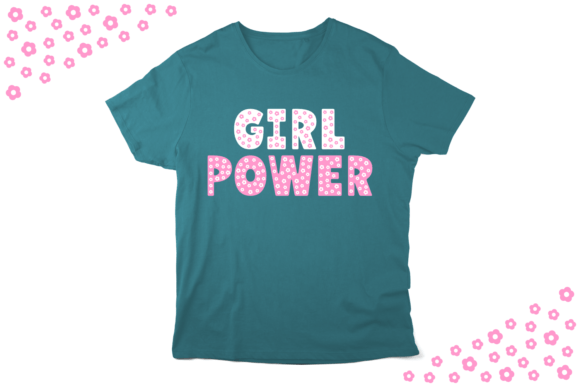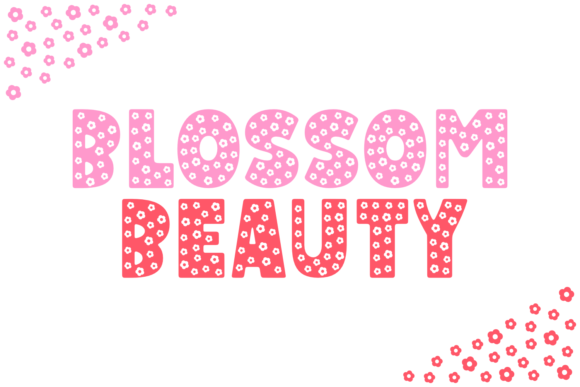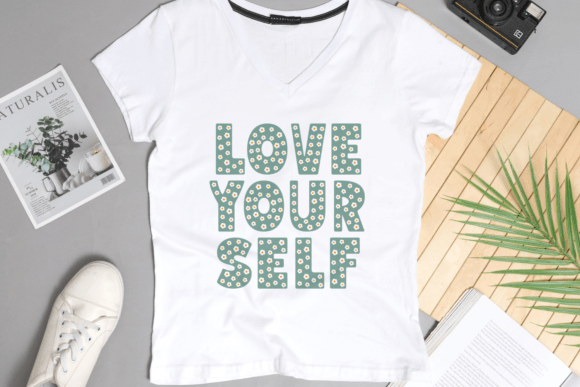
Introduction to Miral Font
As a designer, there’s nothing quite like the thrill of discovering a new, high-quality design resource that elevates your creative project to the next level. For me, that moment came when I stumbled upon the Miral Font – a stunning decorative font that exudes elegance and beauty. With its intricate floral details, Miral Font is the perfect addition to any design project seeking to convey sophistication and femininity.
Imagine being able to add a touch of romance and whimsy to your wedding invitations, greeting cards, or branding materials with just a few clicks. That’s exactly what Miral Font offers, with its ornate and decorative design creating a captivating visual impact that’s both enchanting and memorable. Whether you’re working on a free download project or a paid design initiative, this versatile font is sure to captivate your audience and leave a lasting impression.
Key Features of Miral Font
- High-quality design resource with a unique, creative style suitable for various projects.
- Includes a wide range of characters, including Latin and Cyrillic alphabets, and punctuation marks.
- Perfect for creative projects, such as branding, logos, and typography-based designs.
Honest Review: Miral Font
I recently came across the Miral Font, and I’m excited to share my thoughts on this design resource. As a designer, I’m always on the lookout for high-quality fonts that can elevate my creative projects. Miral Font definitely delivers in this regard.
- Beautifully crafted letters with a unique flair, perfect for adding a touch of personality to your designs.
- Limited character set, which may not be ideal for extended text projects.
- No bold or italic versions available, which can limit its versatility.
Miral Font
The Miral Font is a versatile, high-quality design resource ideal for creative projects. Its clean and modern aesthetic makes it a great choice for a variety of applications.
The Miral Font is commonly used for:
- Branding materials
- Infographics
- Brochures
Getting the Most Out of Miral Font
To get the most out of the Miral Font, be sure to:
- Use it in conjunction with other high-quality design elements
- Experiment with different font sizes and styles
- Combine it with a transparent background for a modern look